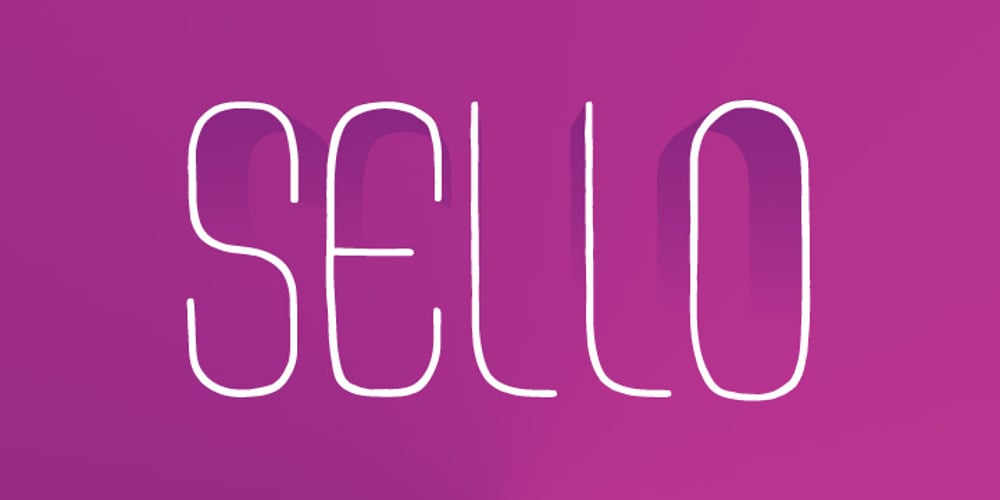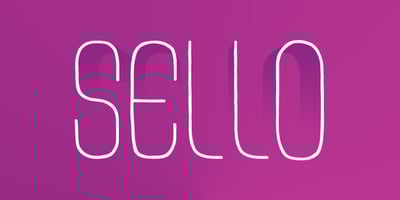
Sello Font Family was designed by Alex Jacque and published by Alex Jacque. Sello contains 6 styles and family package options. Sello is a hand-drawn, geometric sans-serif with a touch of retro style. It’s a unicase typeface inspired by hand-engraved, mid-1960s Spanish postage stamps, hence the name “Sello” – Spanish for “stamp”. This font comes in three different weights – light, regular, and bold – with a regular and oblique version of each for a total of 6 styles. Vowels have a special third alternate glyph. Sello also contains the necessary diacritics and special characters to support several different languages. Looks great at the slightly larger point sizes, when used in header or display purposes.